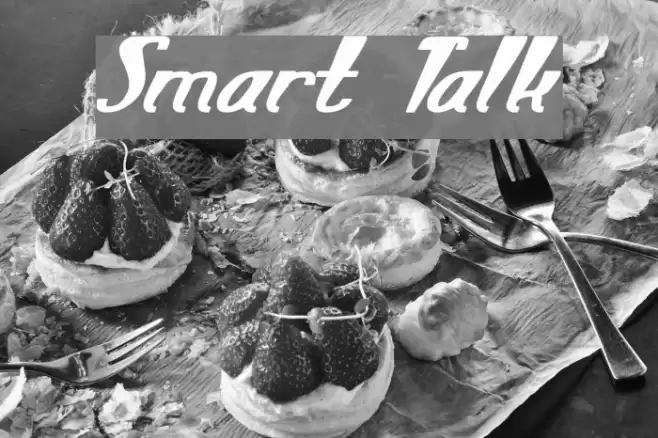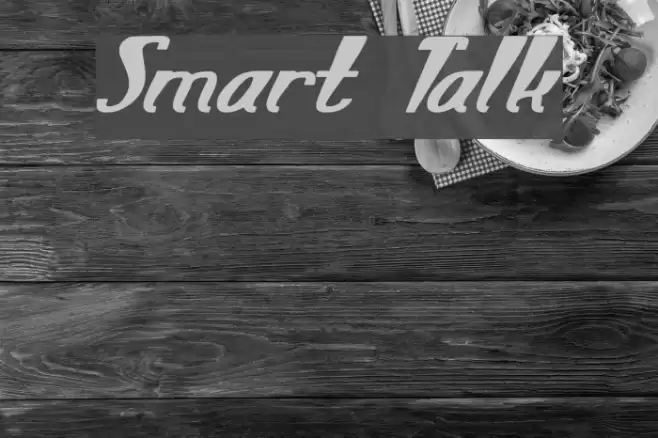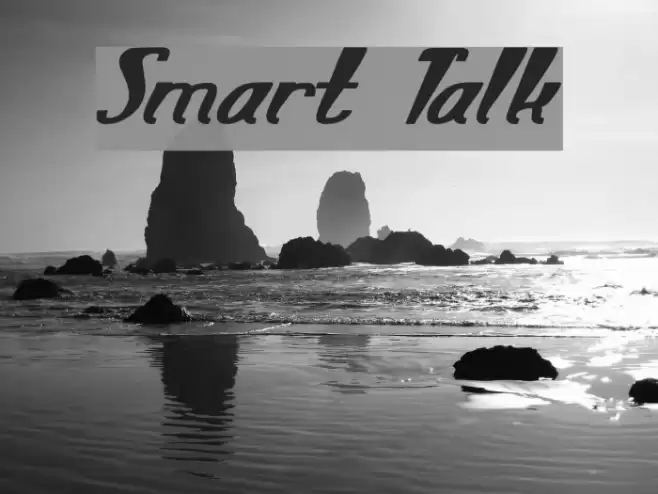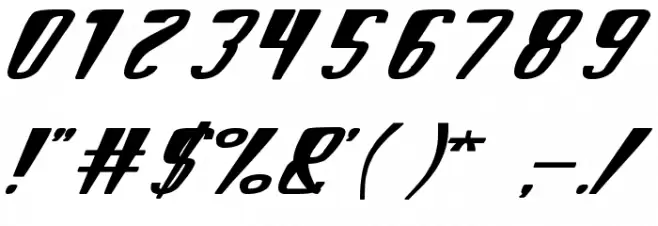
Smart Talk Font
Smart Talk Description
This font features a bold and dynamic style with a distinct slant, giving it a sense of motion and energy. The characters are designed with sharp, angular edges and a consistent stroke width, creating a cohesive and impactful appearance. The uppercase letters are particularly striking, with a strong presence that commands attention. The lowercase letters maintain the same energetic style, ensuring readability while adding a touch of flair. The numerals and special characters are crafted to match the overall aesthetic, making this font versatile for various applications.
A bold, slanted font with sharp, angular edges and dynamic energy from Uncategorized fonts.